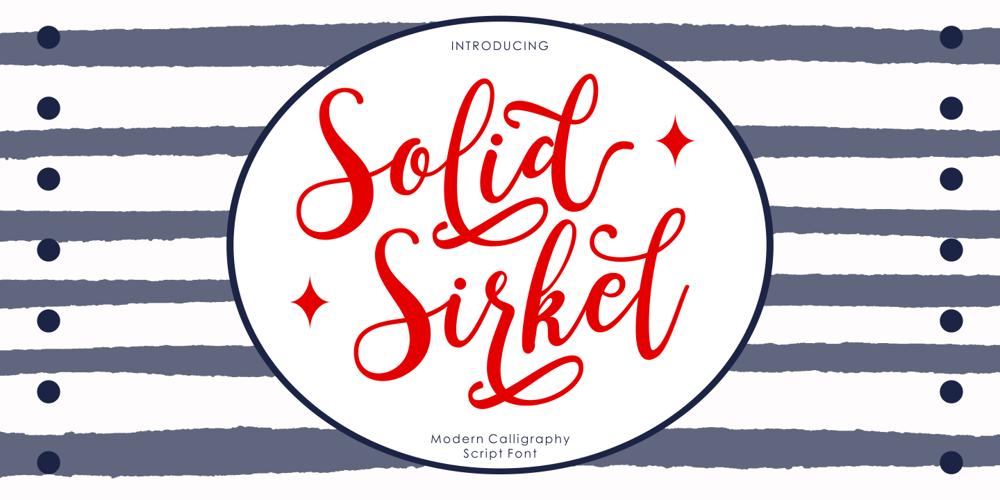
Solid Sirkel
Solid Sirkel font
Solid Sirkel Font Family was designed by Rinaldi Novianda and published by Alpha Bento. Solid Sirkel contains 1 styles and family package options. Solid Sircle is a modern font. This font has a lovely touch of character, perfect for a variety of designs. Solid Sircle features varied baselines, unique smooth lines, and stunning alternatives. Add to your most creative ideas and see how to make art! Alternative Glyph style (including Uppercase, Lowercase, Numbers & Punctuation) Works on PC & Mac Simple installation Accessible in Adobe Illustrator, Adobe Photoshop, Adobe InDesign, even works in Microsoft Word Multilingual Support Thank you,Hope you enjoy our fonts!